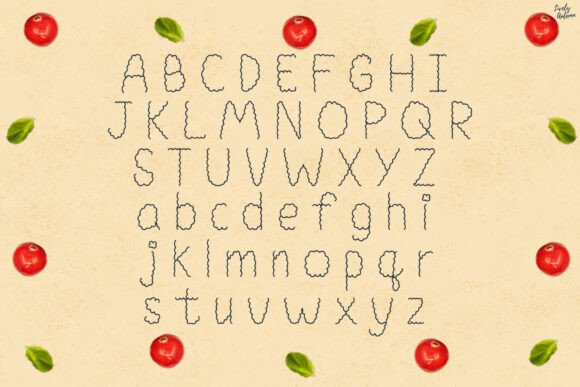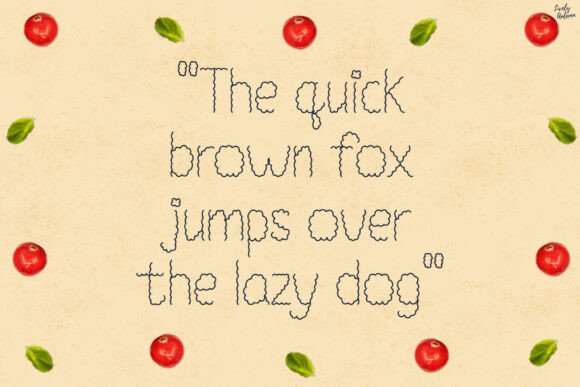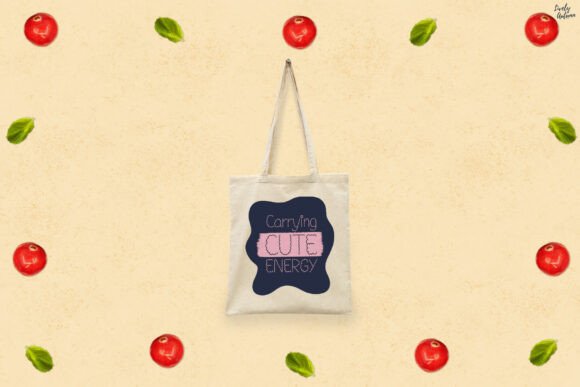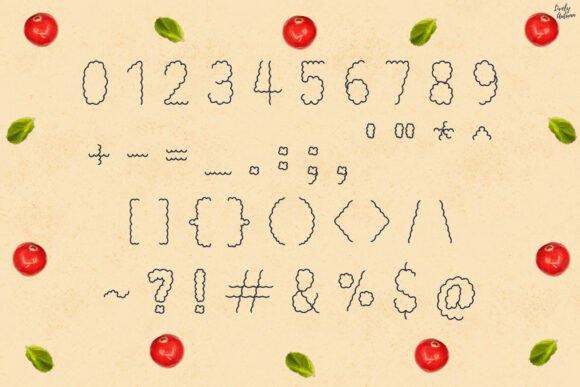
The Ultimate Guide to Cranberry Font: A Playful Handwritten Delight
I’ll never forget the time I was working on a project for a client’s birthday party invitation. I had the design concept nailed, but I just couldn’t find the perfect font to match the playful and whimsical vibe. That was until I stumbled upon Cranberry Font. It was love at first sight! The wavy lines and handwritten charm instantly elevated my design, and my client ended up loving it. In this article, I’ll share with you why Cranberry Font is a must-have in your design arsenal and how to make the most of its features.
An Honest Review of Cranberry Font
- ✨ Playful and Whimsical: Cranberry Font has a unique, handwritten charm that’s perfect for projects that require a personal touch.
- ✅ Versatile: This font is suitable for a wide range of projects, from invitations and posters to social media graphics, journals, and stickers.
- 💻 Comprehensive Character Set: The font includes uppercase and lowercase letters, numbers, and punctuation, making it a great choice for body text and headlines.
While Cranberry Font is an excellent choice for many projects, there are a few things to keep in mind:
- 🤔 Limited Formality: Due to its playful nature, Cranberry Font may not be the best choice for formal or professional projects.
- ⚠️ Legibility at Small Sizes: While the font is clear and readable at larger sizes, it may become less legible at very small sizes (e.g., 8-10pt).
- Experiment with OpenType features, such as Stylistic Alternates and Swashes, to add more personality to your text.
- Use the font for headings, titles, and other text elements that require a playful touch.
The Backstory of Cranberry Font
Cranberry Font was designed by a team of creatives who wanted to create a playful, handwritten font that would bring a smile to people’s faces. Inspired by the wavy lines and whimsical charm of traditional handwriting, Cranberry Font was born. The design team poured their hearts into crafting a font that’s both fun and functional, making it perfect for a wide range of projects.
Q: Is Cranberry Font suitable for body text?
A: While Cranberry Font is primarily designed for headings and titles, it can be used for body text in certain contexts. However, keep in mind that the font’s legibility may decrease at smaller sizes.